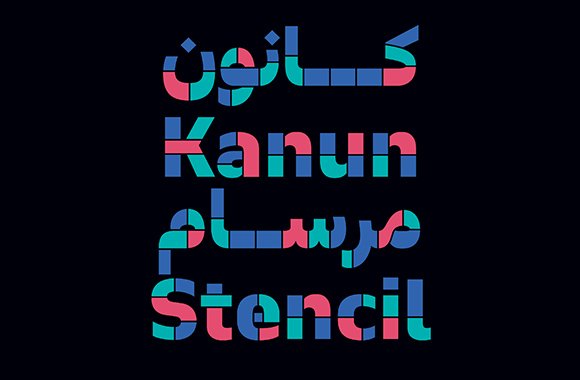
Kanun Stencil Font Family
Kanon Stencil is a powerfully crafted typeface family that brings the bold, structured aesthetic of stencil lettering to both Arabic and Latin scripts. With its clean cuts, industrial character, and commanding presence, this font is perfect for projects that need to convey strength, authority, and contemporary edge.
Stencil Design Characteristics:
- Bold, structured stencil-style letterforms
- Clean cuts and industrial aesthetic
- Commanding presence with strong visual impact
- Authentic stencil appearance with contemporary polish
- Excellent visibility at various sizes
Arabic Script:
- Complete Arabic character set in stencil style
- Full support for diacritics and marks
- Proper character connections and positioning
- Consistent stencil cuts across all letters
- Bold, authoritative presence
English/Latin Script:
- Coordinated stencil design matching Arabic style
- Complete uppercase and lowercase characters
- Numerals, punctuation, and special characters
- Harmonious weight and proportion with Arabic
- Industrial, contemporary appearance
- Industrial Design: Factory and manufacturing branding
- Military Projects: Defense and tactical applications
- Urban Branding: Streetwear, graffiti, and city culture
- Posters: Bold, attention-grabbing announcements
- Packaging: Industrial-strength product presentation
- Signage: Commanding displays
- Logos: Strong, memorable brand identities
- Game Design: Tactical and military game interfaces
- Event Materials: Sports, competitions, and rallies
- Bold Impact: Commanding stencil aesthetic
- Coordinated Scripts: Harmonious Arabic and English
- Versatile Application: Perfect for industrial and contemporary projects
Key Features of Kanon Stencil Font:
- Bold stencil-style Arabic and English designs
- Complete character sets for both scripts
- Industrial, contemporary aesthetic
- Perfect for industrial, military, and urban projects
- Industrial and manufacturing brands
- Military and tactical designers
- Streetwear and urban culture brands
- Poster and signage designers
- Game developers for tactical games
- Anyone needing bold, stencil-style bilingual typography